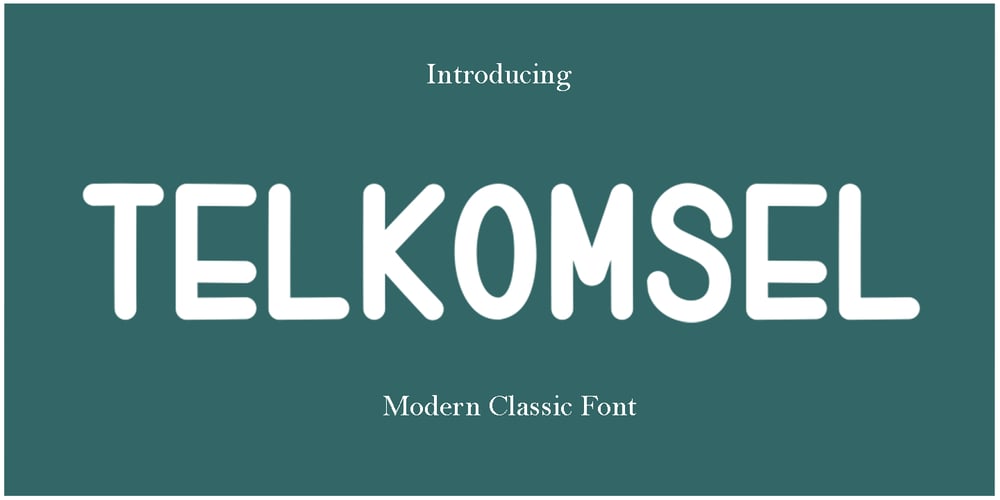
Telkomsel Font Family was designed by Teuku Saifullah and published by Shape Studio. Telkomsel contains 1 styles and family package options. Hi everybody,on this occasion I would like to introduce a new product. dubbed Telkomsel, he is very classic and elegant. equipped with stylistics up to 288 glyphs, of course it will really help your work more attractive and beautiful.